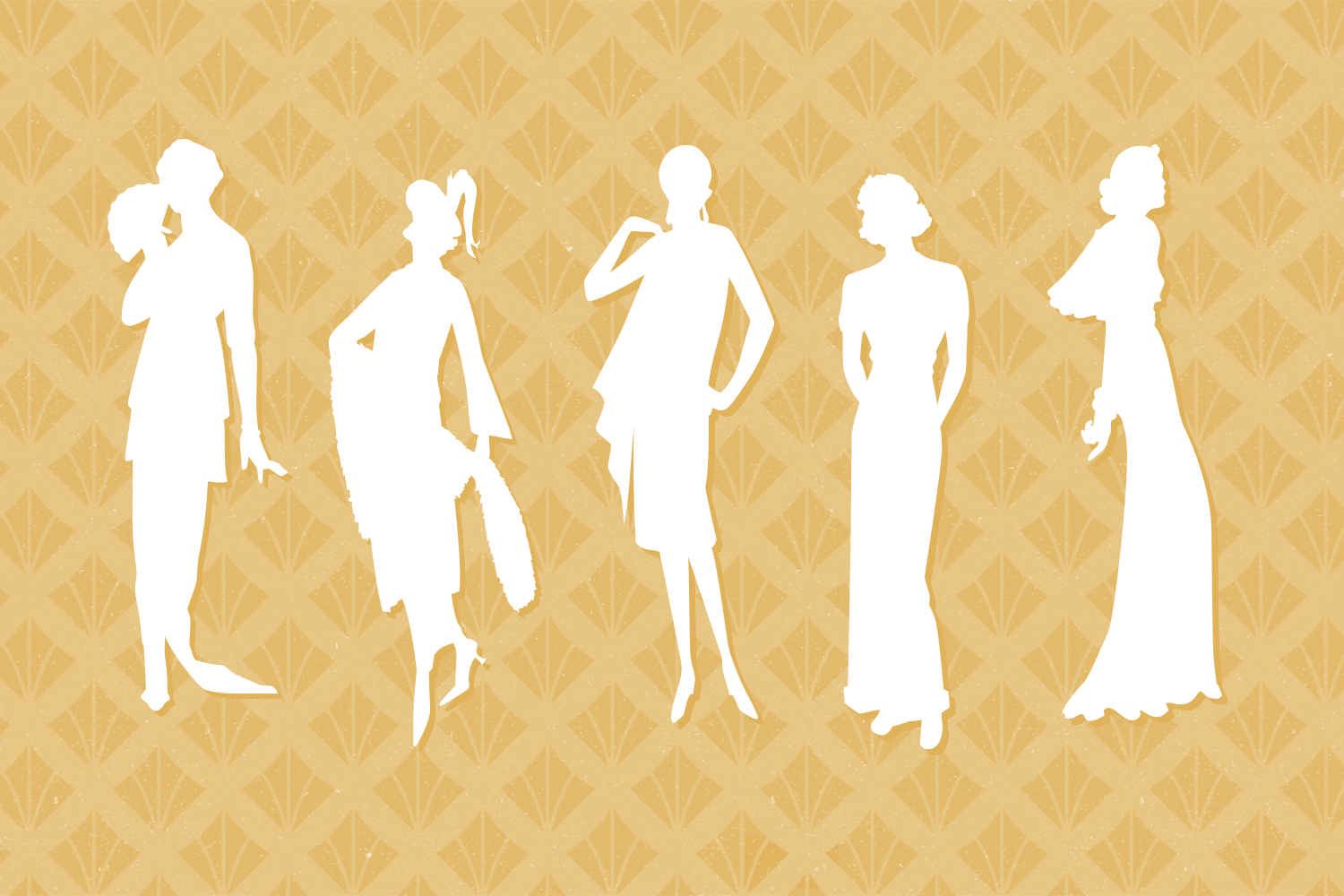
Sewing Patterns 2
If Sewing Patterns wasn't quite vintage enough for you, Sewing Patterns 2 is the answer to your early twentieth century wishes. Spanning the years 1910 to 1949, it's more Downton Abbey than Mad Men, more Katharine than Audrey, and definitely contains more hats.
Like the original, the upper and lowercase letters feature what the well-dressed woman was wearing and the numbers are popular children's fashions.